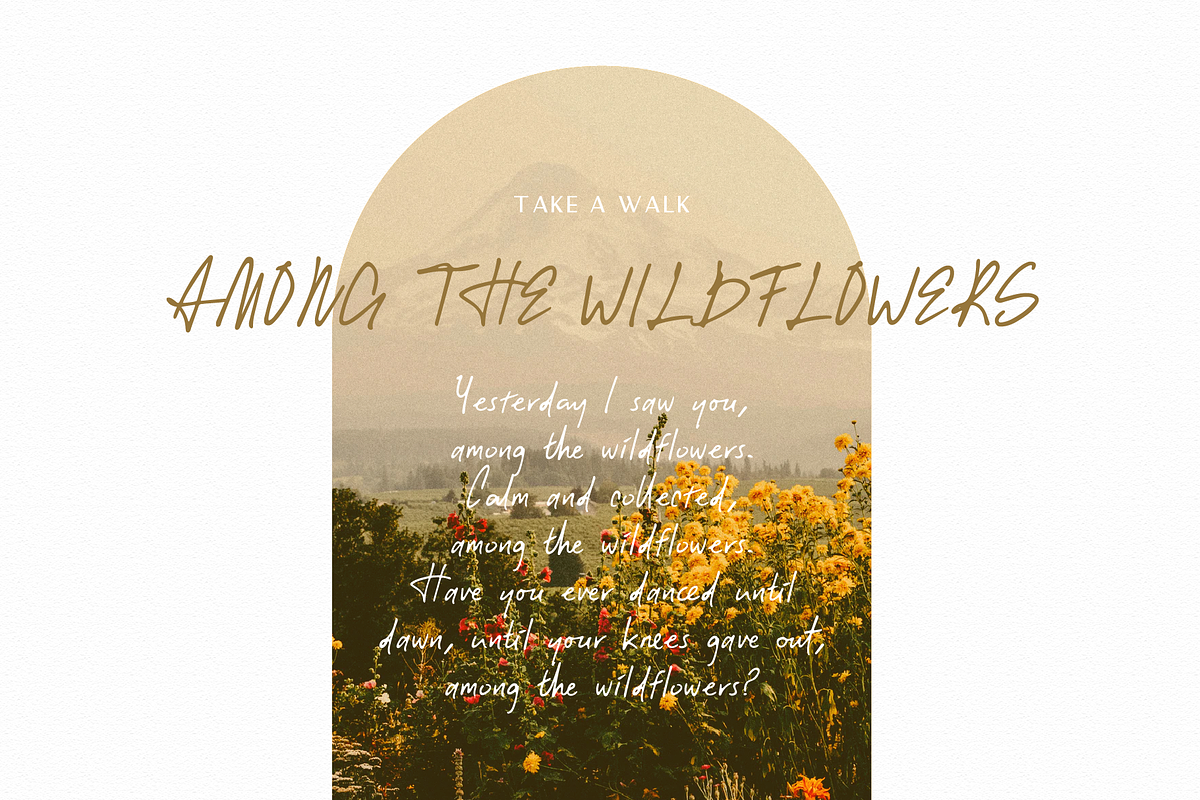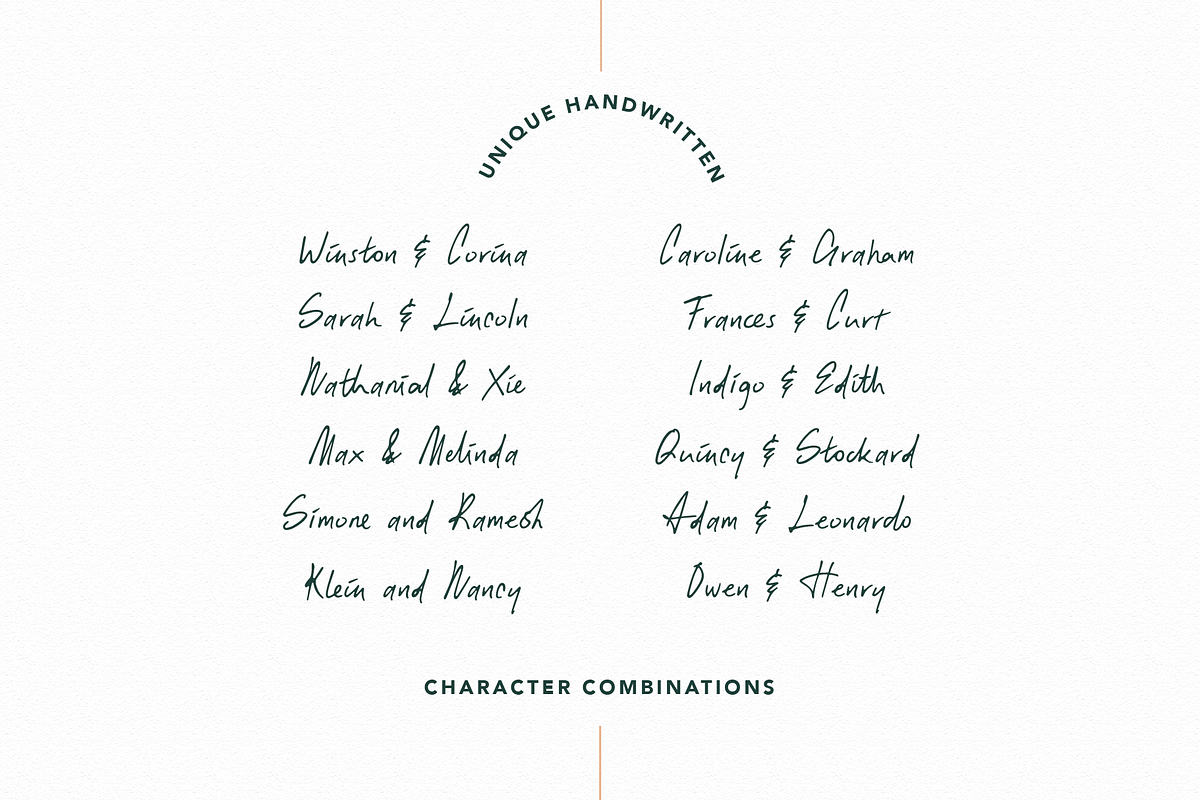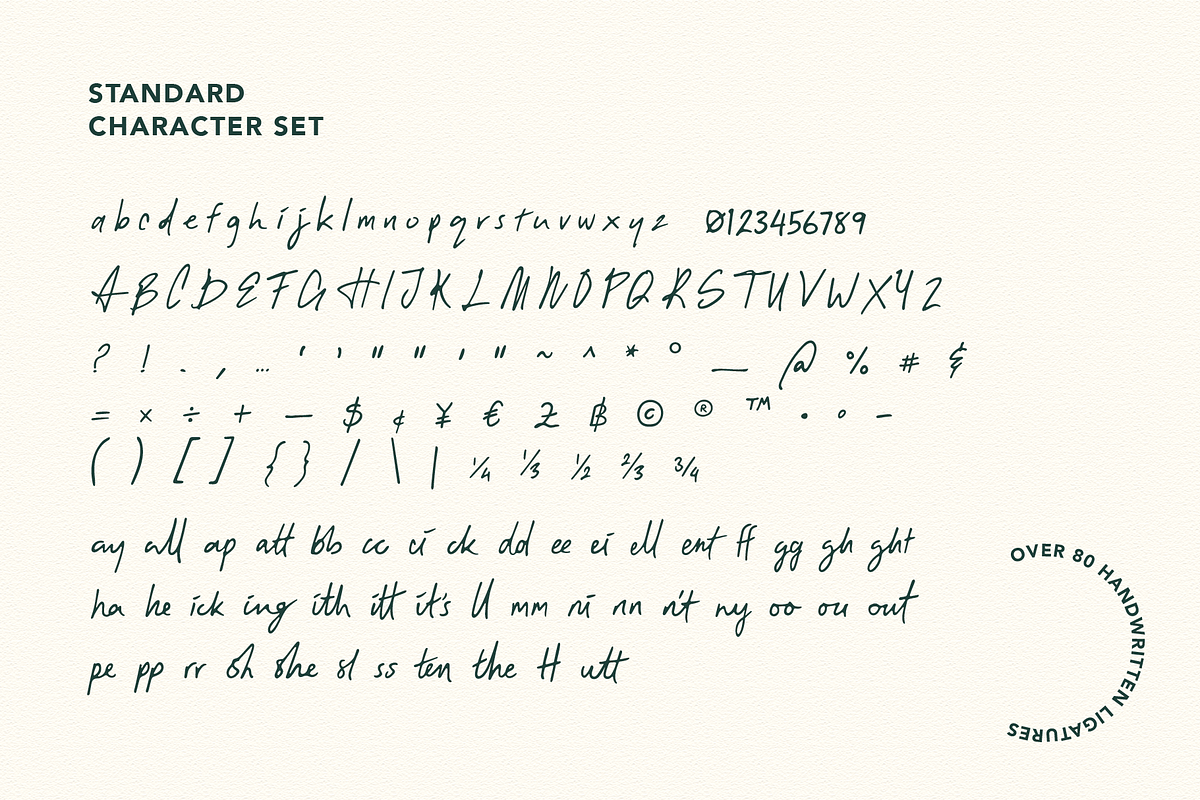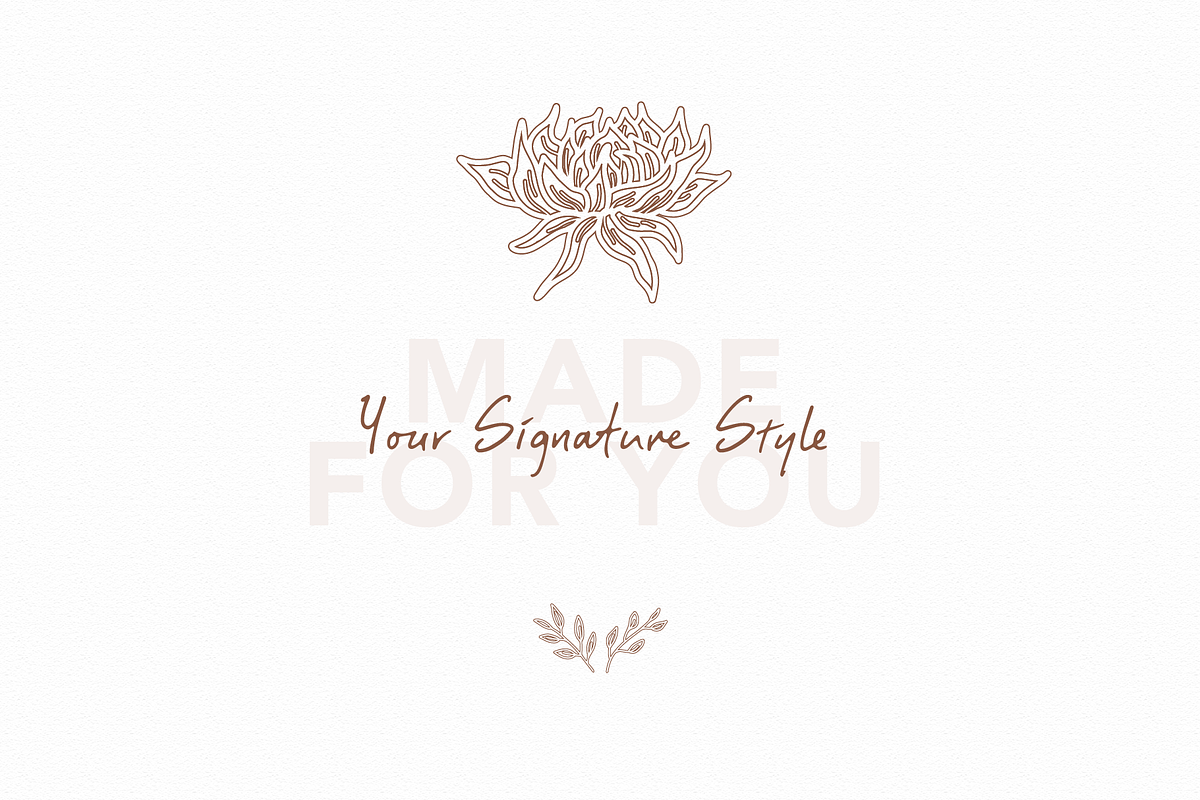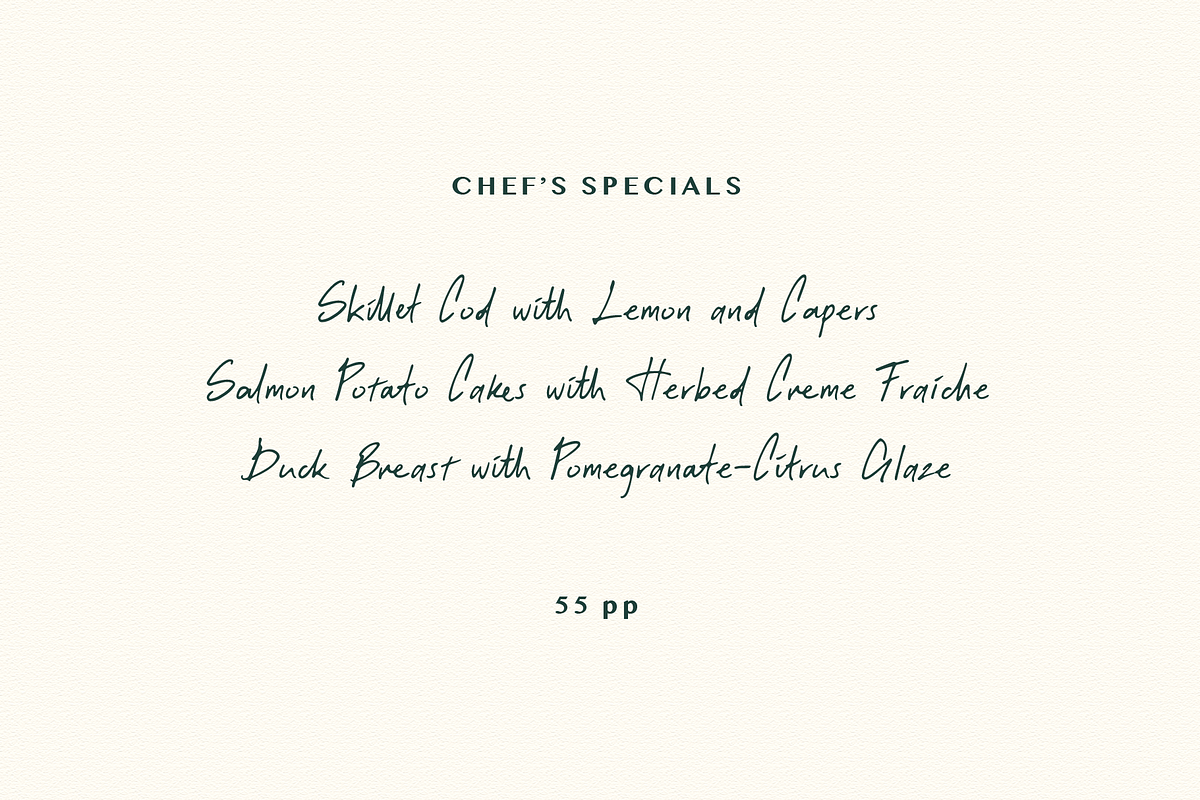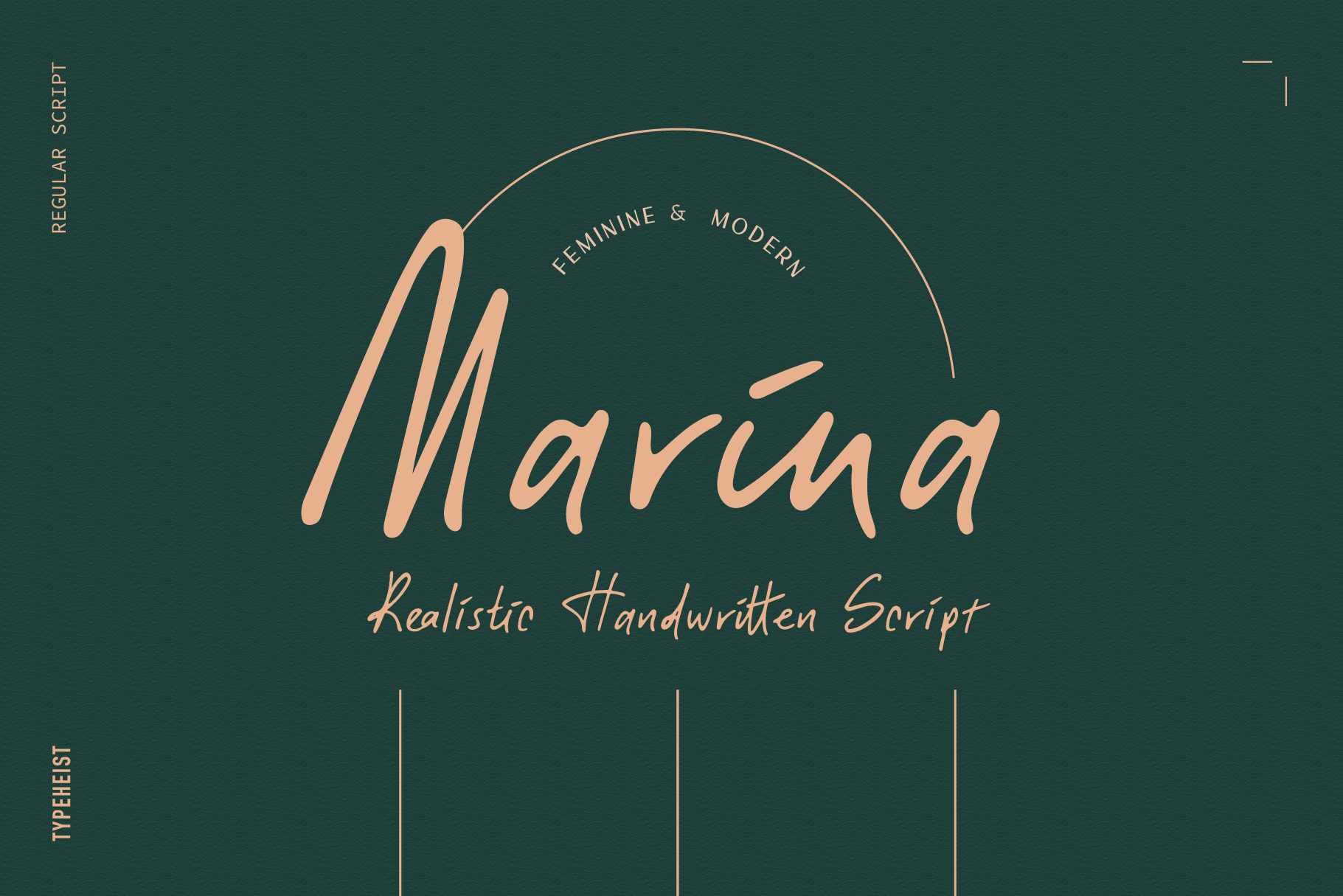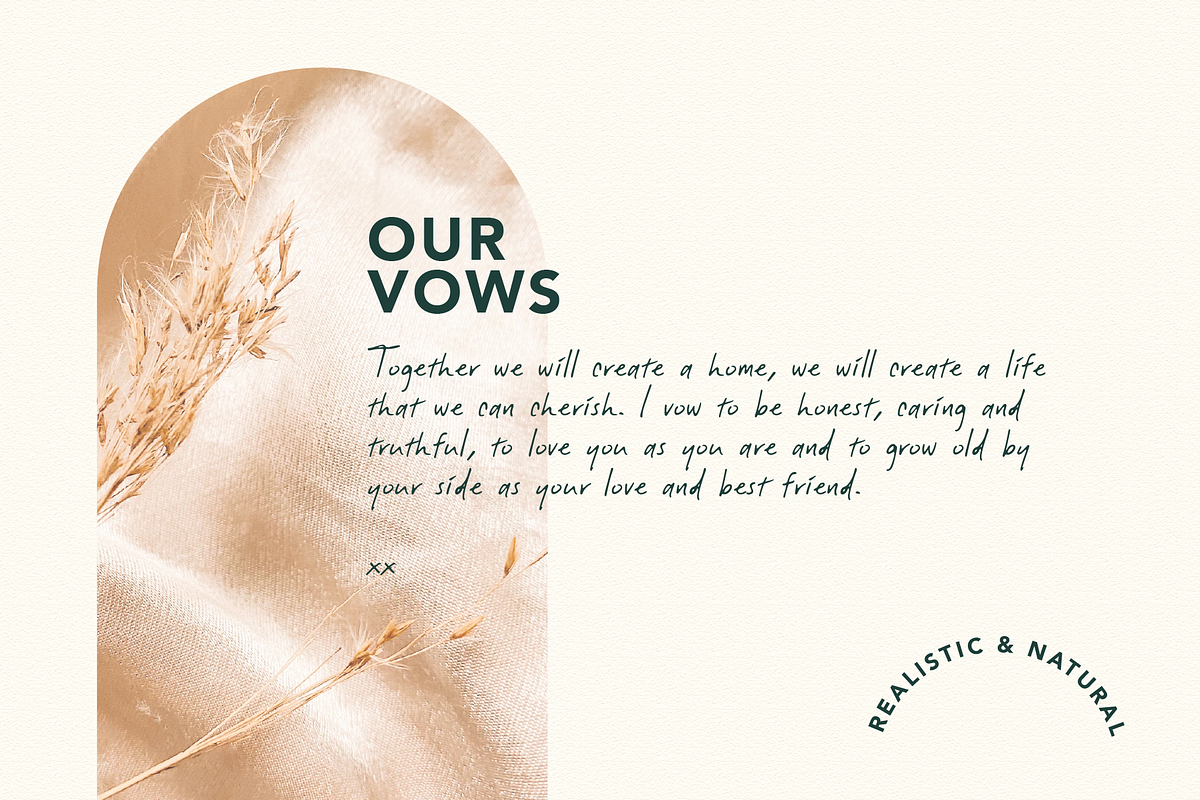
Marina Modern Handwriting Font
A feminine, yet modern, handwritten font - perfect for adding that warm touch.
‘Marina’ is realistic and unique. It looks like real handwriting, because it is... Written originally with a fineliner pen, Marina exhibits that personal touch.
Over 80 ligatures will transform your writing from standard text into a beautiful, handwritten script.
Marina looks great for headings and body copy.